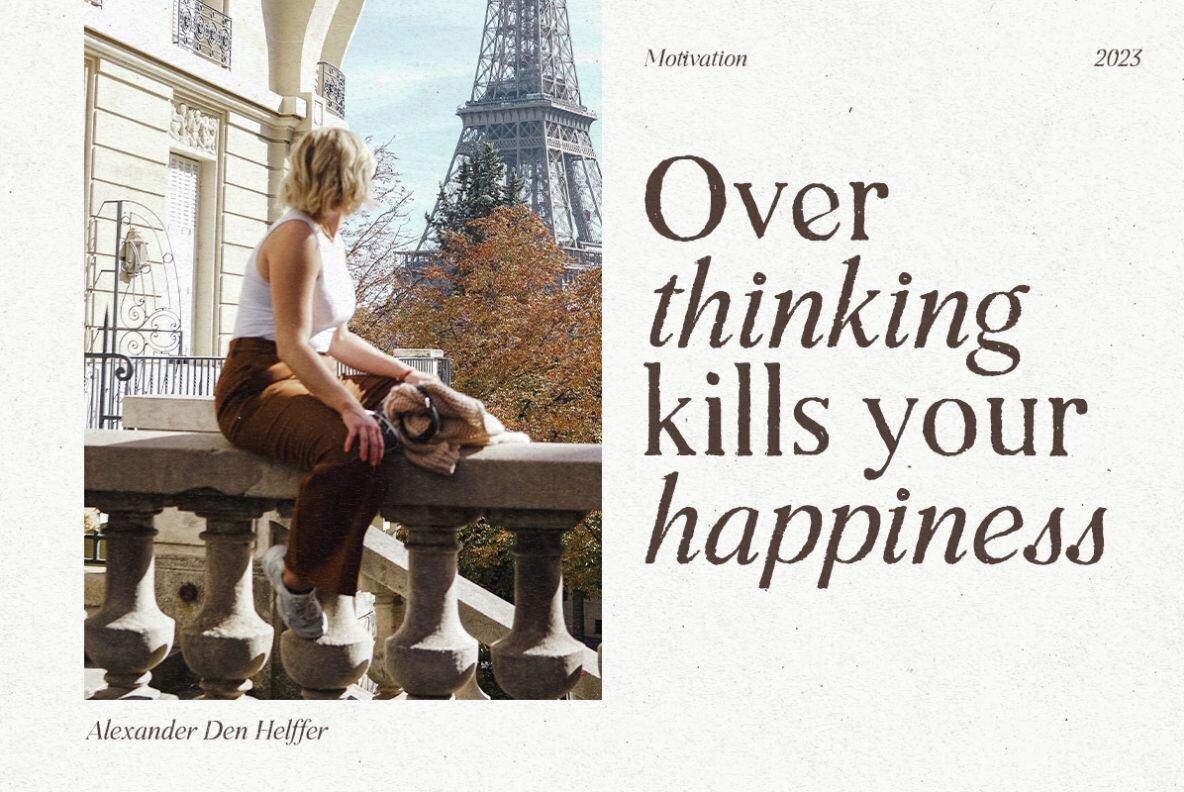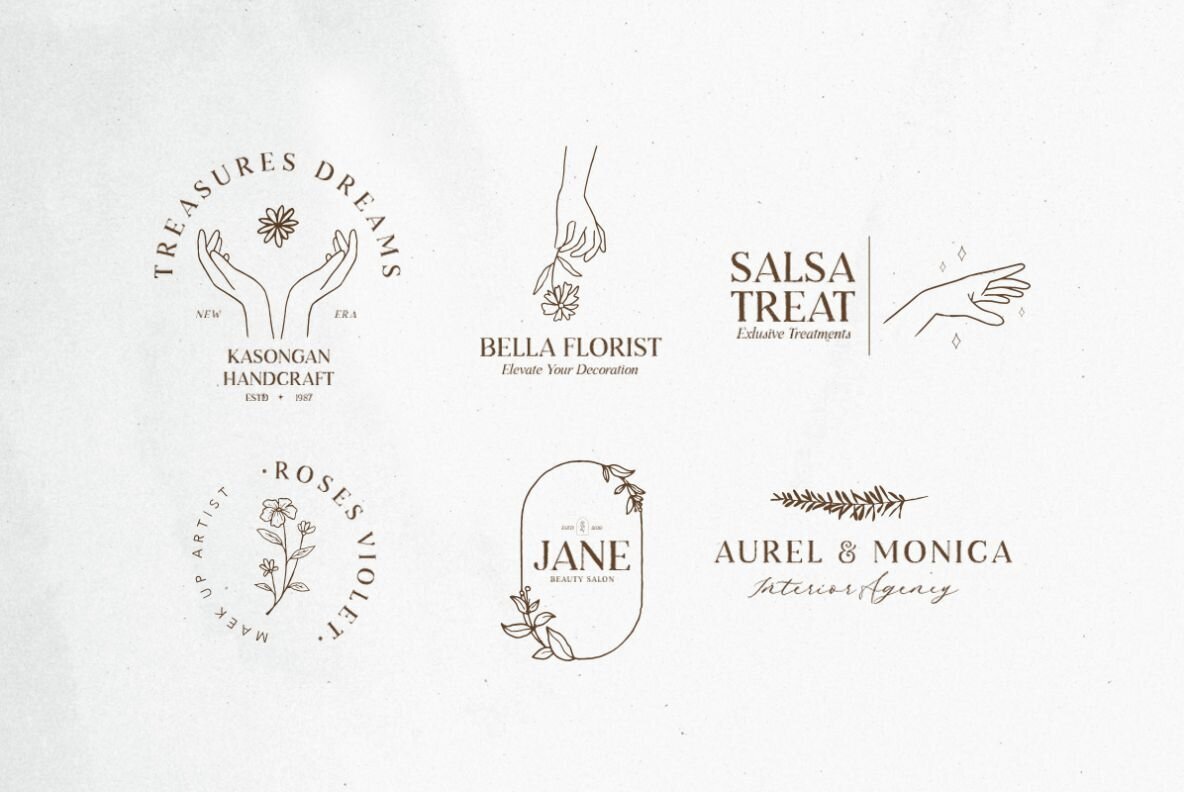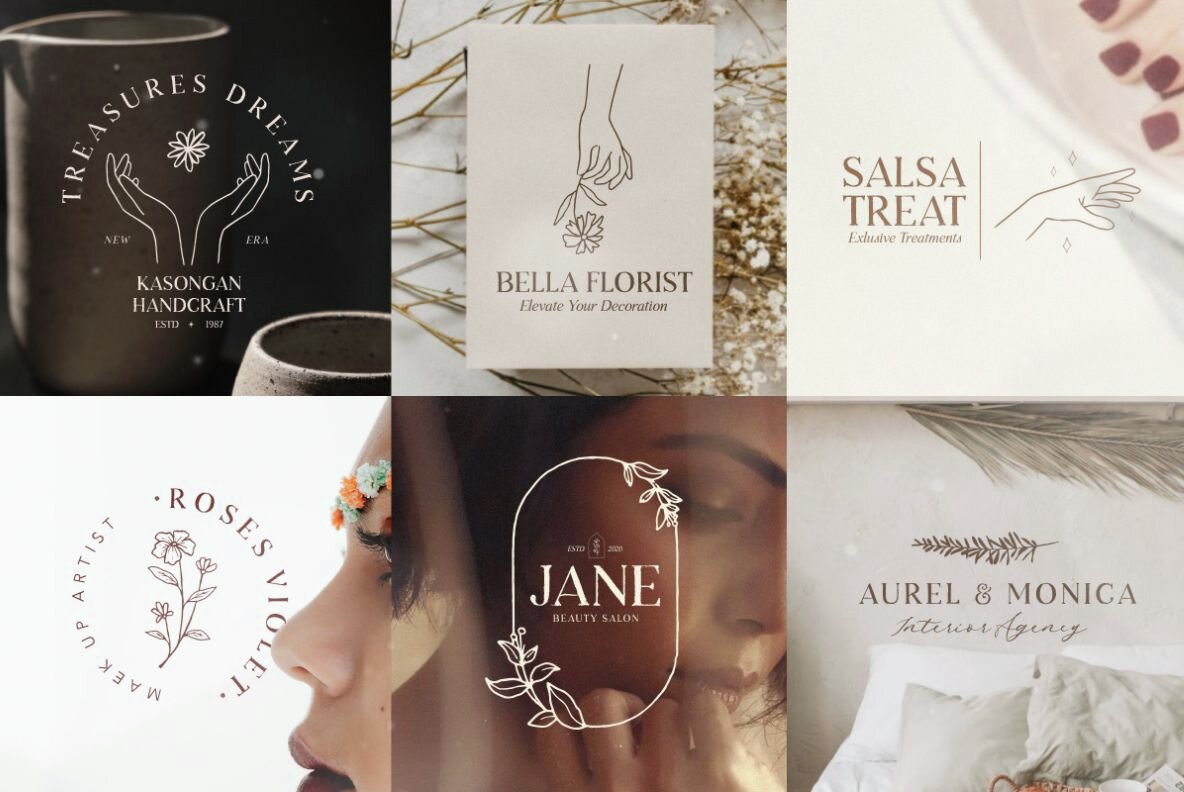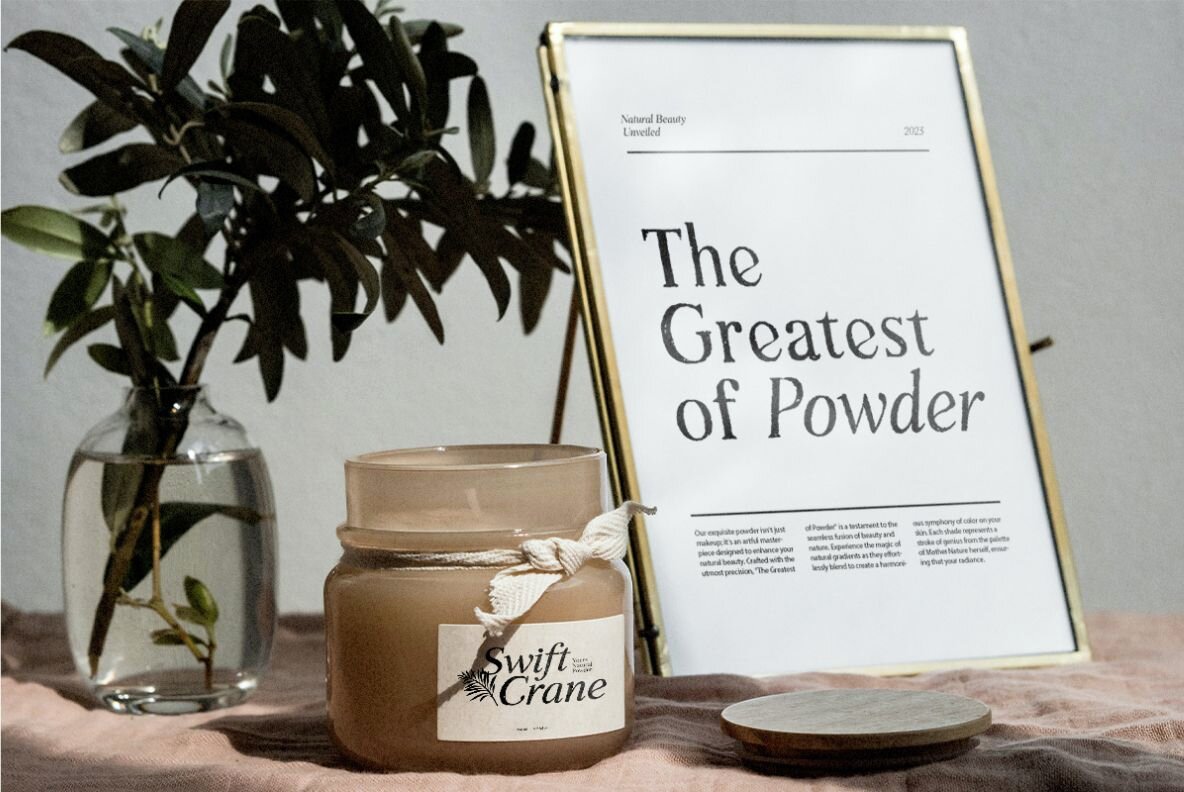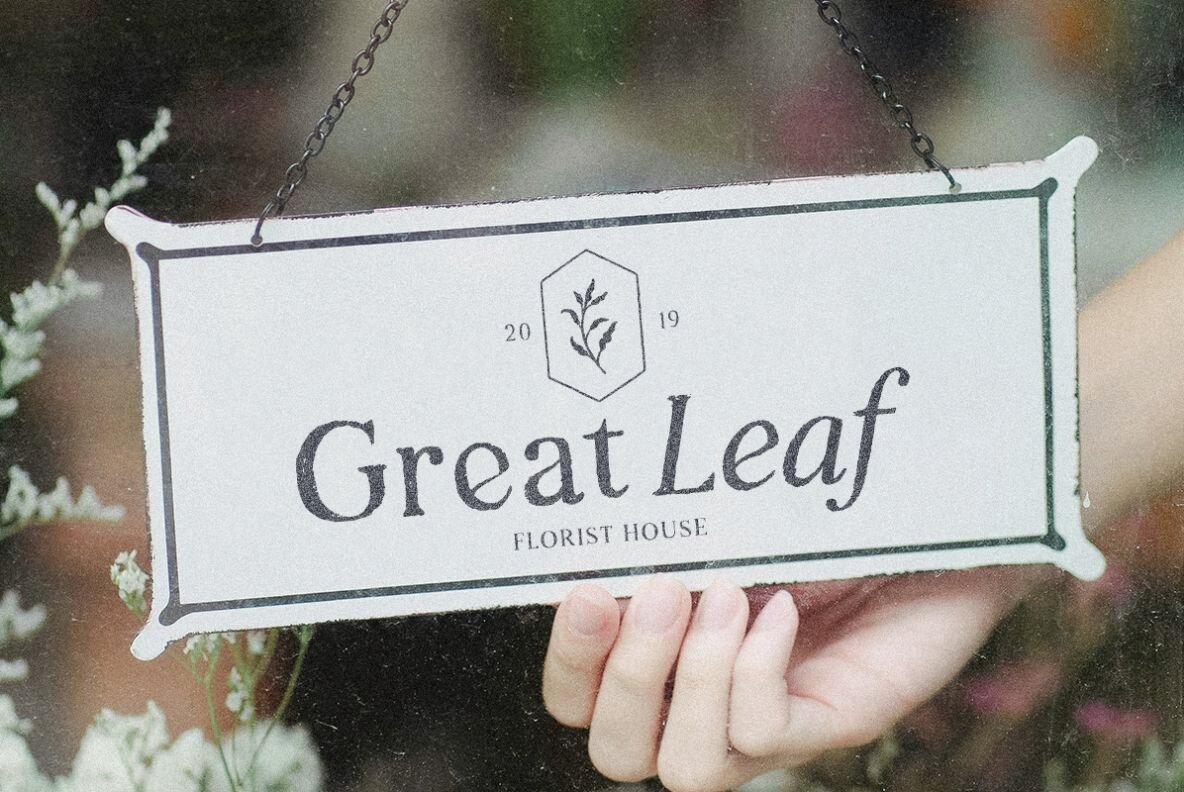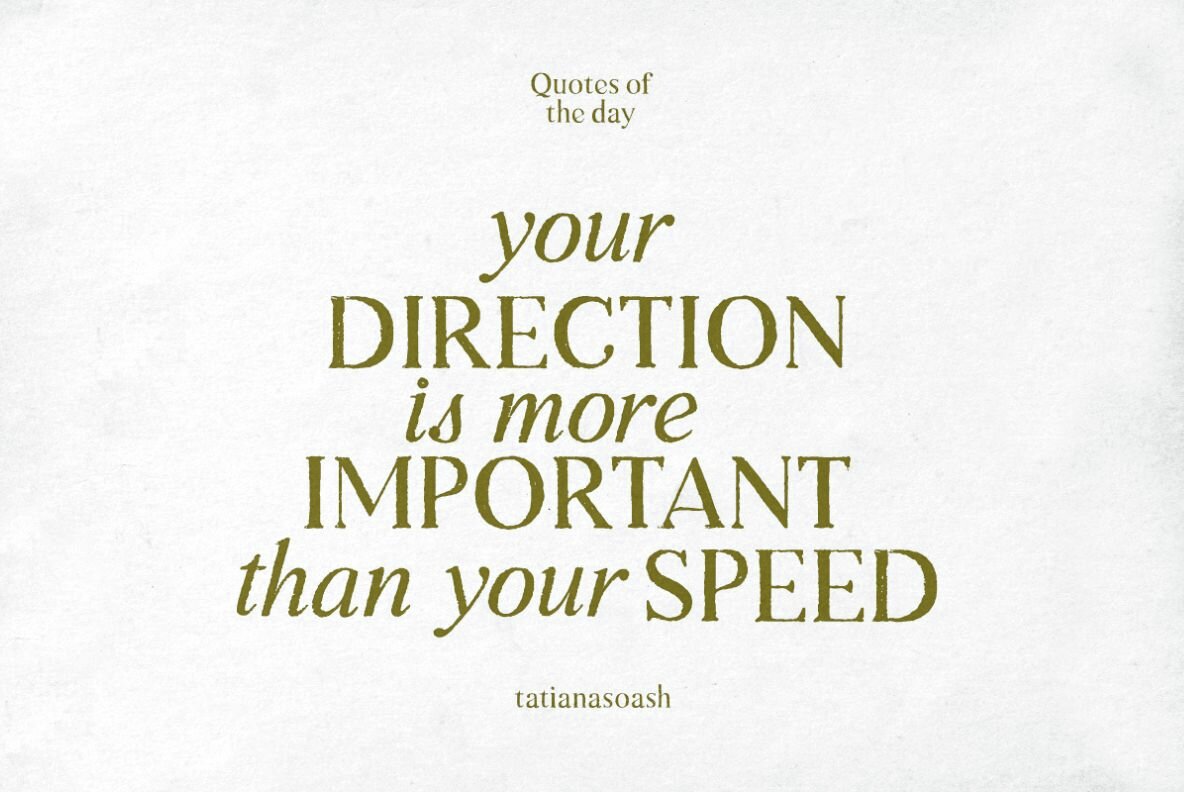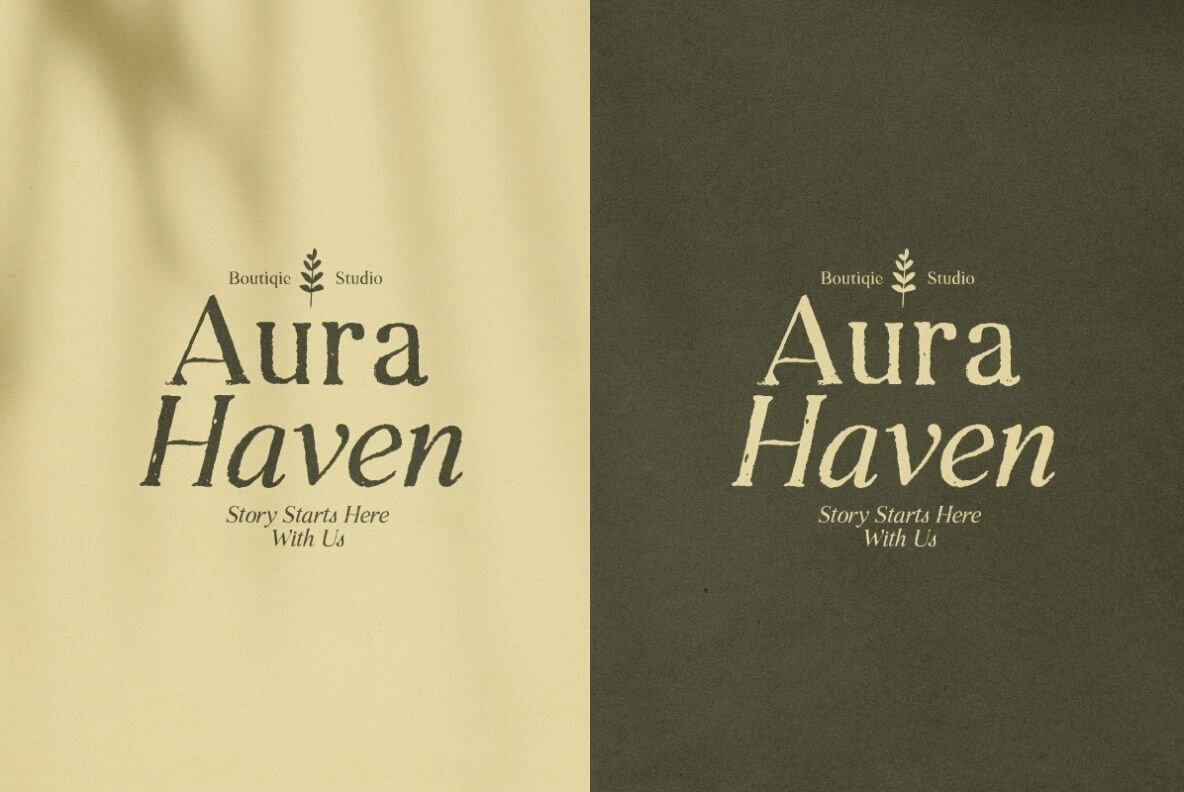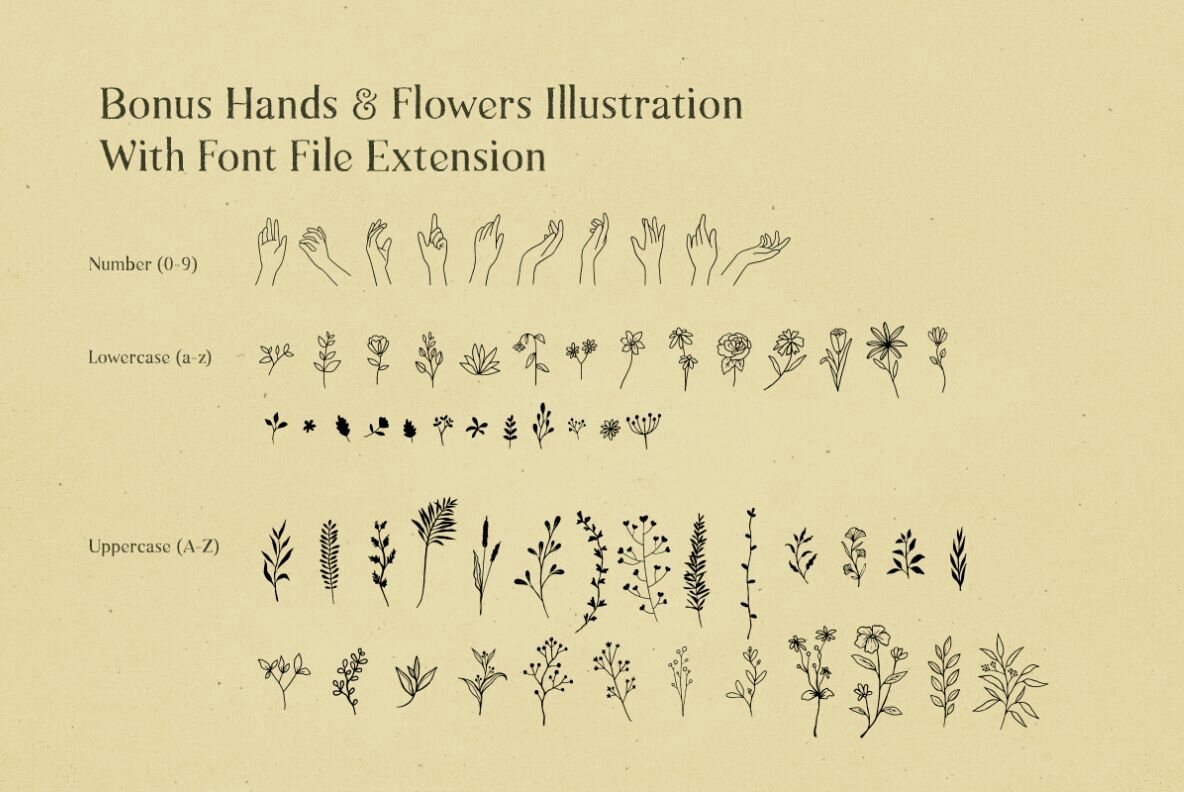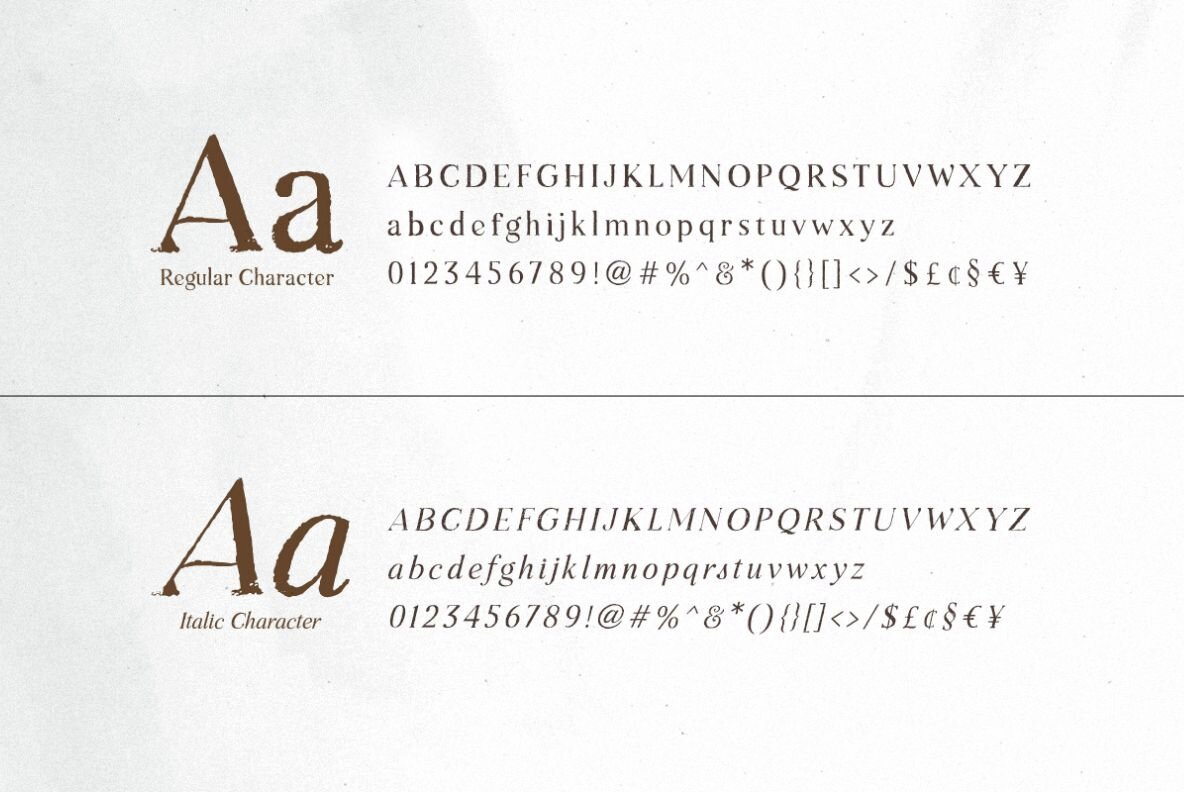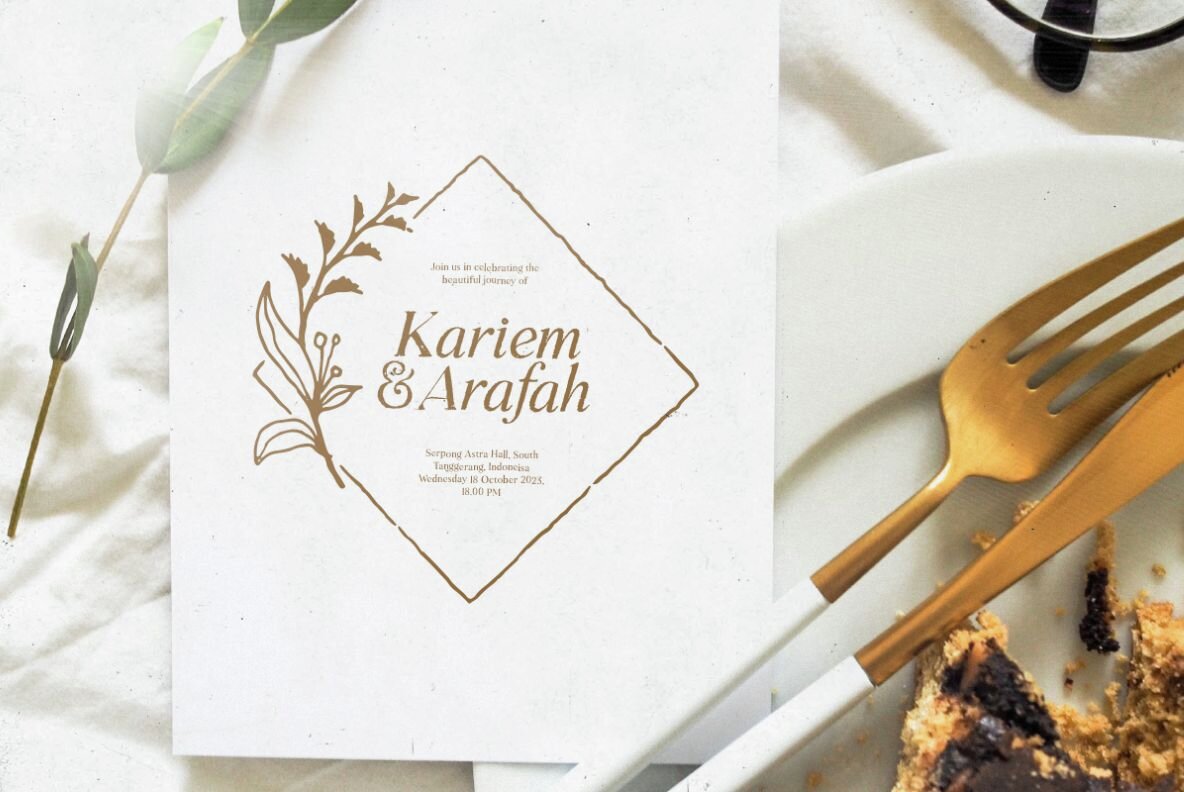
Natural Comforts Font
Natural Comforts Regular
Natural Comforts Italic
Natural Comforts Dingbats
Natural Comforts is a hand-lettered serif family with hands and flowers illustrations. You can use this fonts for any occasions such as quotes, poster, branding, and wedding invitations. With bonus illustrations in fonts format, you can make your own beautiful logo in any software. Natural Comforts also support multi language!